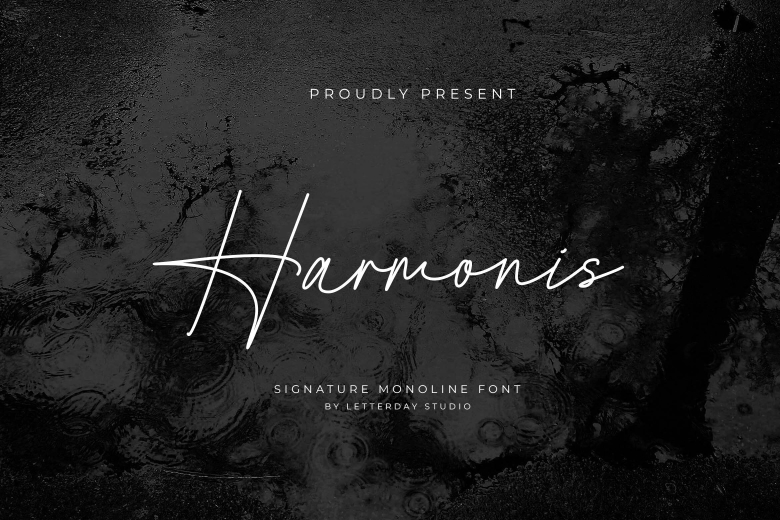
Harmonis Font
Introduce harmonis font is a very stylish and cool handwritten font And the child can use it carefully. This font is ideal to be used in logos, fonts, labels, stationary, social media posts, weddings, photograph watermarks, etc. This font supports the uppercase, lowercase, number, punctuations and ligature and it can be used with ease.
Harmonis Handwritten Script Font